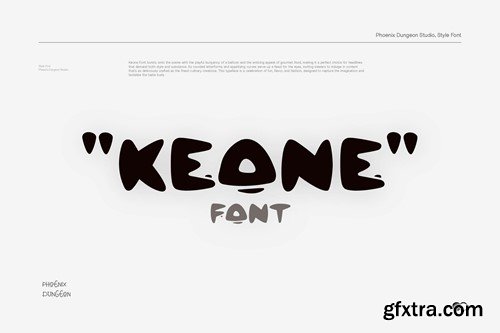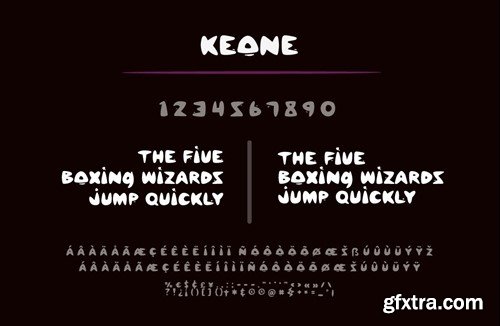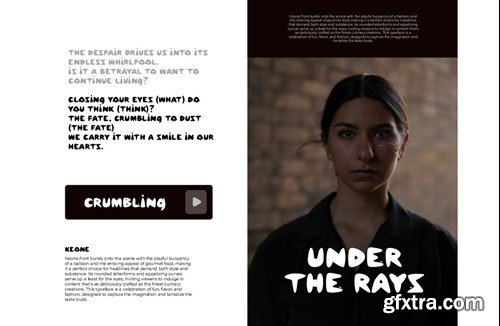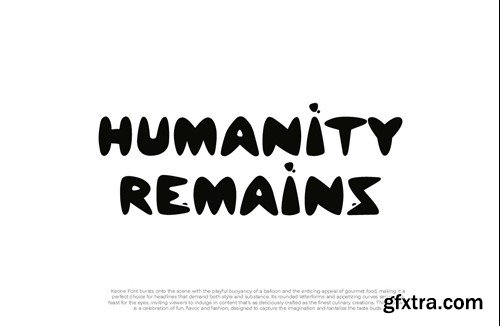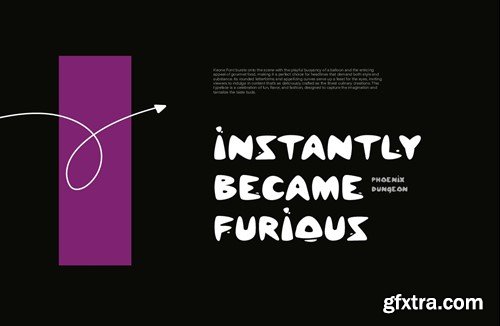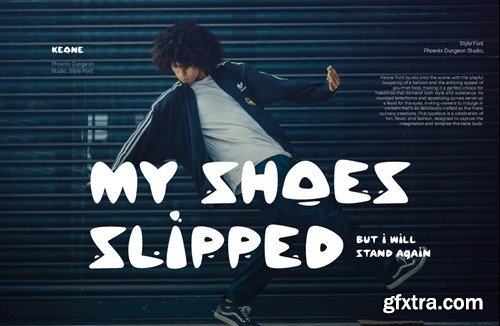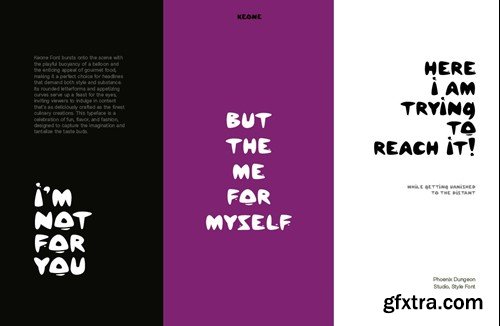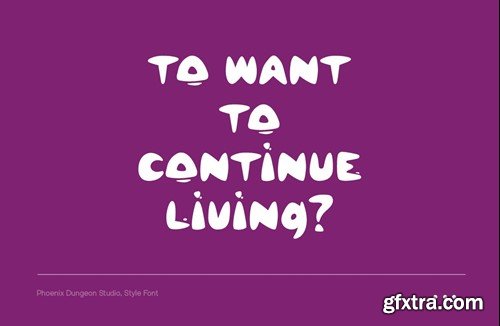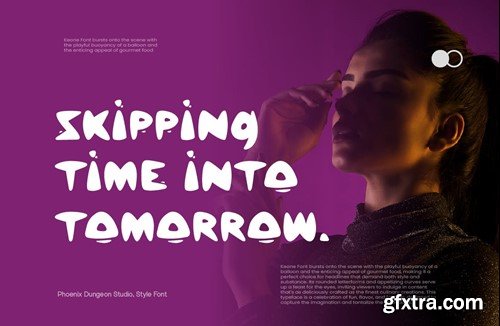
Keone Font
Keone Font bursts onto the scene with the playful buoyancy of a balloon and the enticing appeal of gourmet food, making it a perfect choice for headlines that demand both style and substance. Its rounded letterforms and appetizing curves serve up a feast for the eyes, inviting viewers to indulge in content that's as deliciously crafted as the finest culinary creations. This typeface is a celebration of fun, flavor, and fashion, designed to capture the imagination and tantalize the taste buds. What’s in the package : Thank you